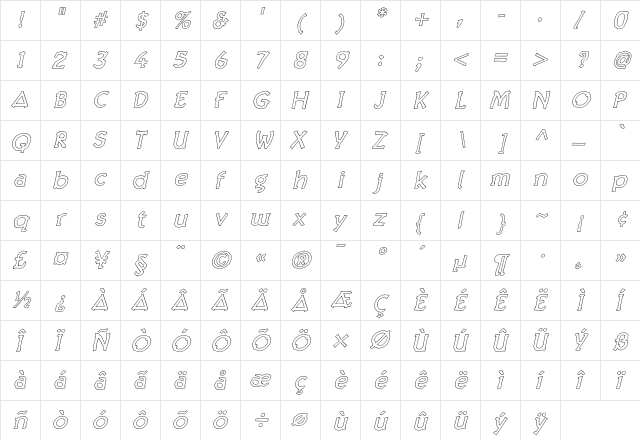
Twig Bold Inline Oblique Regular Font Preview
Design Context for Twig Bold Inline Oblique Typeface
Twig Bold Inline Oblique brings ornamental detail and strong personality to headlines and identities, where visual impact matters more than quiet functionality. The dynamic lean of this cut emphasises speed and emphasis in any layout. Its bold stroke weight gives it real presence on the page.
Font Pairing: Pair with a clean neutral sans-serif for body copy to let Twig Bold Inline Oblique's character lead without overwhelming the composition.
Pro Tip: Treat Twig Bold Inline Oblique as the centrepiece of your typographic hierarchy. One strong heading set in a decorative face can carry an entire layout.